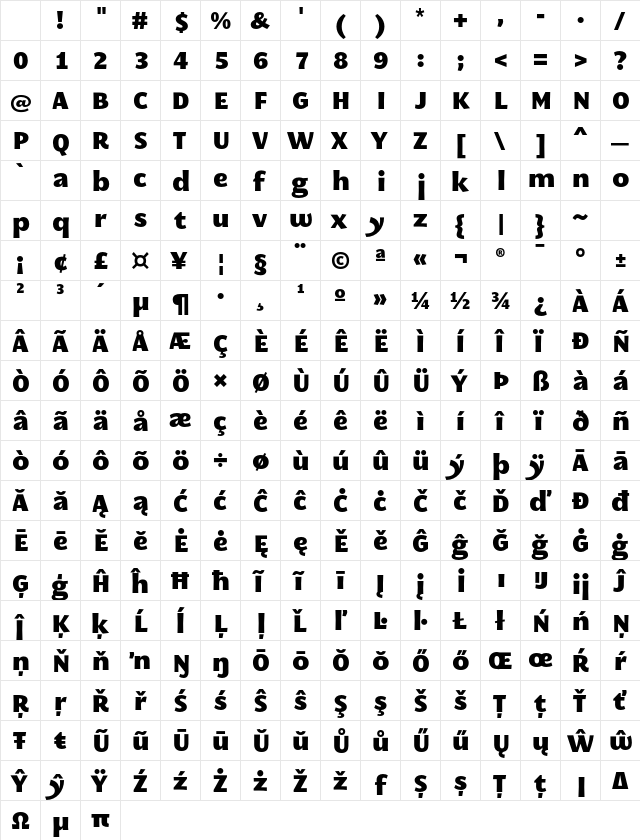
Complete MEgalopolis Extra Regular glyph index. Displaying only characters natively supported by MEgalopolis Extra Regular font.
MEgalopolis Extra is a composed and adaptable typeface that performs quietly and consistently across a wide range of design contexts.
Pro Tip: Use MEgalopolis Extra in both headline and body roles to test its range before committing to a single application.